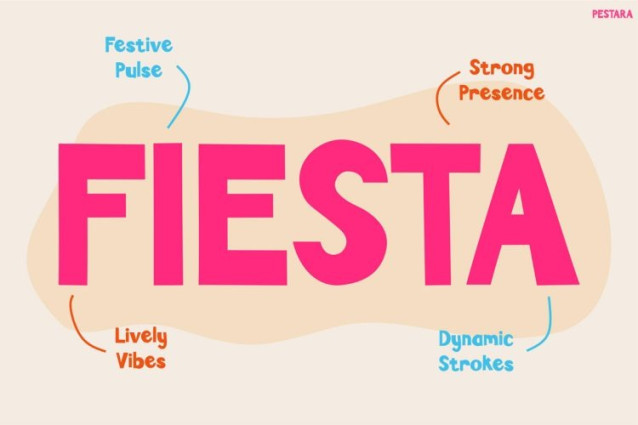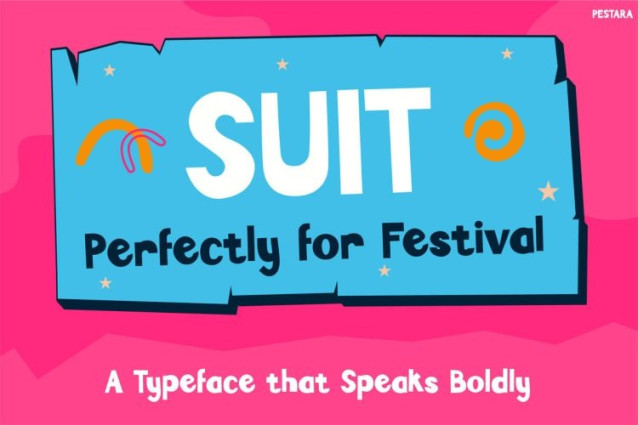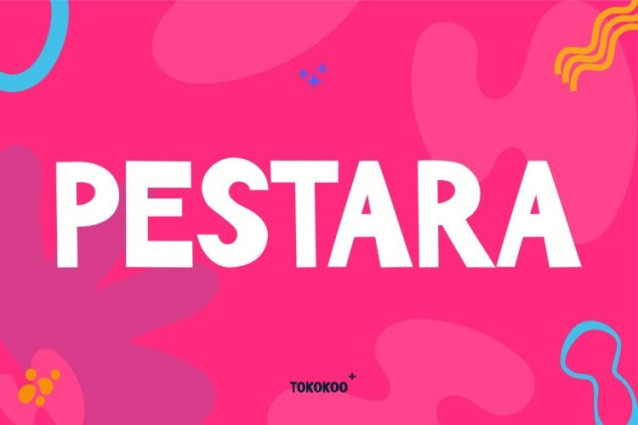
Pestara Font
Pestara Font is a bold, energetic display font designed to turn every message into a celebration. From the first glance, this font delivers a vibrant rhythm that feels alive, expressive, and full of motion. Its chunky letterforms, rounded edges, and dynamic proportions create a playful yet confident personality. Because of that, PESTARA instantly grabs attention on screens and prints alike. Moreover, the font balances fun aesthetics with clear readability, making it perfect for fast-scrolling Instagram feeds. Each character feels rhythmic, almost musical, which explains why it works so well for festival visuals, live events, and energetic announcements. In addition, its modern playful style helps brands look friendly, bold, and approachable without feeling childish. As a result, PESTARA becomes a strong visual voice for creators who want impact and joy in one typeface.
Instagram Font PESTARA shines in high-energy designs where expression matters most. The font is crafted to feel bold but not heavy, playful but still structured. Therefore, it works beautifully for headlines, posters, social media graphics, and digital banners. The letter shapes feel fluid and lively, which helps designs look dynamic even in static layouts. Furthermore, PESTARA pairs perfectly with bright colors, gradients, and fun illustrations. It supports creative typography experiments while still keeping messages readable. Because of its strong personality, this font helps content stand out in crowded visual spaces. Whether used large or medium-sized, it maintains clarity and charm. In short, PESTARA transforms simple text into a visual performance.
Who Is It For?
Instagram Font PESTARA is ideal for content creators, designers, and brands that focus on energy and engagement. It suits Instagram posts, reels covers, stories, and promotional graphics. Additionally, it works well for event organizers, music festivals, street parades, youth communities, and creative agencies. Small businesses such as cafés, clothing brands, and entertainment venues can also use it to build a fun and memorable identity. Even educators and community groups will find it useful for cheerful announcements and campaigns. Simply put, if your audience loves color, motion, and excitement, this font is made for you.